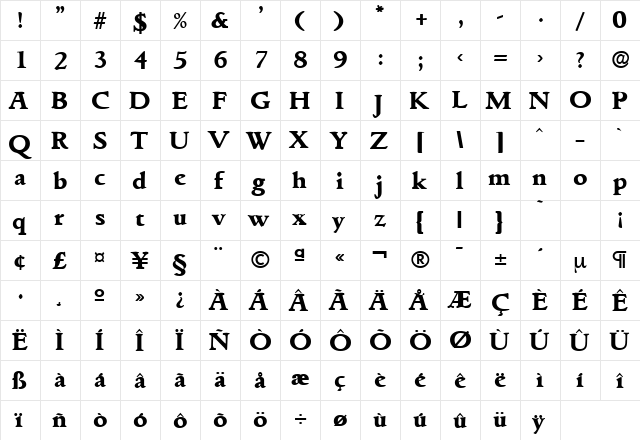
Goudita-Serial-ExtraBold Regular
Design Context for Goudita-Serial-ExtraBold Typeface
Goudita-Serial-ExtraBold offers clean, dependable letterforms without strong stylistic allegiance, making it a practical choice for designers who need flexibility. Its bold stroke weight gives it real presence on the page.